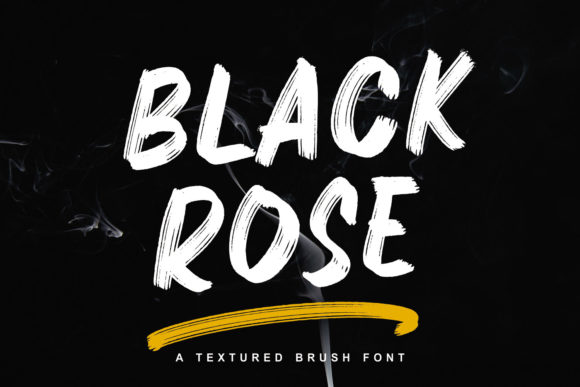
The Ultimate Guide to Black Rose Font: A Designer’s Dream Come True
I’ll never forget the time I was working on a project for a client’s t-shirt design. I had the perfect concept, but I just couldn’t find the right font to bring it all together. The design needed to be bold, eye-catching, and edgy, but also elegant and sophisticated. That’s when I stumbled upon the Black Rose font, and it was love at first sight! 💕
Black Rose is a cool, bold, and brushed display font that’s perfect for designs such as t-shirts, sportswear, logos, advertisements, clothing, and more. In this article, I’ll share my honest review of the font, provide a practical guide on how to use it, and explore similar fonts and alternatives.
• 💥 **Bold and eye-catching**: Black Rose font is perfect for making a statement. Its bold and brushed texture gives it a unique, edgy look that’s sure to grab attention.
• ✅ **Highly versatile**: This font can be used for a wide range of design projects, from t-shirts and logos to advertisements and clothing.
• 🌈 **Great for creative hobbyists**: Whether you’re a professional designer or a crafty hobbyist, Black Rose font is easy to use and can add a touch of sophistication to your projects.
• ⚠️ **Limited use for body text**: Due to its bold and brushed texture, Black Rose font may not be the best choice for body text or long paragraphs.
• ⚠️ **May not work well at small sizes**: The font’s texture and details may get lost when scaled down to small sizes.
3. Experiment with the font’s OpenType features, such as glyphs and stylistic alternates, to add more personality to your design.
• Rusty: A distressed and bold font with a similar brushed texture to Black Rose. Use Rusty for designs that need a more rugged and industrial look.
• Bombay: A elegant and sophisticated font with a similar bold and eye-catching style to Black Rose. Use Bombay for designs that need a more luxurious and high-end look.
• Kiss My Face: A bold and playful font with a similar handwritten texture to Black Rose. Use Kiss My Face for designs that need a more whimsical and fun look.
• Pacifico: A beautiful and elegant script font with a similar sophisticated style to Black Rose. Use Pacifico for designs that need a more refined and classic look.
Designer Inspiration: The Story Behind Black Rose Font
The Black Rose font was designed by a talented type designer who’s passionate about creating unique and creative fonts. The designer’s inspiration for Black Rose came from a combination of traditional brush scripts and modern digital fonts. The goal was to create a font that’s both bold and elegant, with a unique texture that’s perfect for making a statement.
Q: What type of designs is Black Rose font best suited for?
A: Black Rose font is perfect for designs such as t-shirts, sportswear, logos, advertisements, clothing, and more.
Q: Is Black Rose font available in different styles or variations?
A: Yes, Black Rose font may come in different styles or variations, such as italic, bold, or regular. Please check the font package for specific details.